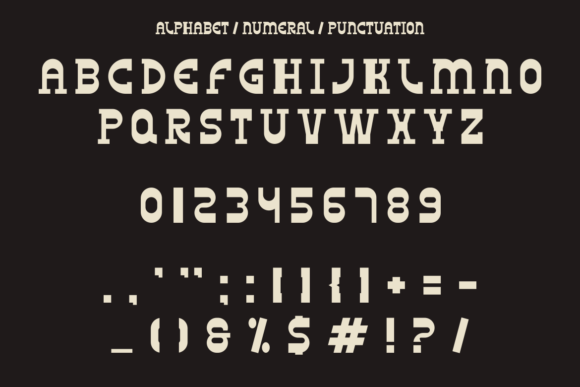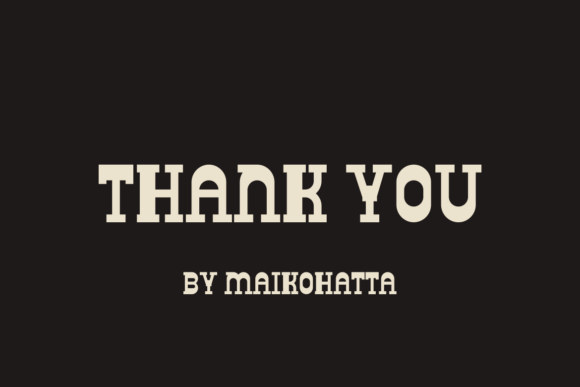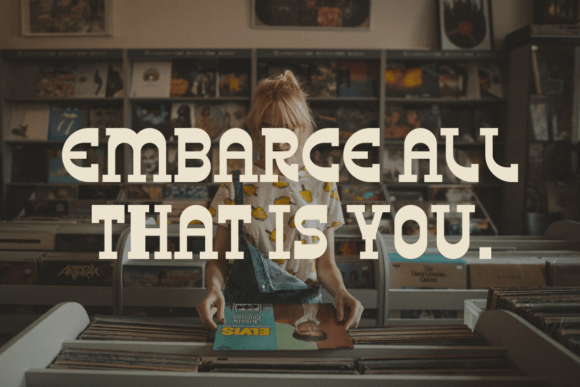
Introduction to Retrobution Font
Do you remember that moment when you were working on a creative project and everything just came together? The perfect blend of colors, the perfect balance of textures, and the perfect font – the icing on the cake? For many designers, that moment is what makes all the hard work worth it. But what if I told you there’s a font that can elevate your designs to the next level, giving you that perfect finishing touch?
Meet the Retrobution Font, a cool, vintage-style display font that’s sure to become your new go-to design resource. With its high quality and versatility, this font is an incredible asset to any designer’s library, offering endless possibilities for creative projects. Whether you’re working on a logo, a poster, or a website, the Retrobution Font is sure to bring a touch of sophistication and elegance to your design.
Key Features of Retrobution Font
- Retrobution Font is a high-quality design resource ideal for creative projects that require a vintage touch.
- Retrobution Font features a unique blend of modern and retro elements, ensuring a consistent aesthetic across various design applications.
- The font comes with a transparent background, allowing for seamless integration with custom graphics and backgrounds.
- The font size is scalable, allowing designers to adjust the font size to suit their creative project’s requirements.
- Retrobution Font is designed with high-resolution graphics in mind, making it perfect for printing and digital applications at 300 DPI or higher.
Honest Review: Retrobution Font
I recently had the chance to try out the Retrobution Font, and I’m excited to share my thoughts with you. This font has some great qualities that make it a solid addition to any design project.
What works well: ✨ The Retrobution Font is a high-quality font that’s perfect for creative projects. It’s clean, modern, and has a great retro vibe that’s perfect for adding some personality to your designs. The font is also available for free download, which is a huge bonus. Plus, it’s got a transparent background, which makes it super versatile.
What doesn’t work so well: ⚠️ While the Retrobution Font is a great addition to many projects, it might not be the best choice for more formal or professional designs. The retro vibe can feel a bit kitschy, and it might not be the right fit for projects that require a more serious tone.
Overall, I’m really impressed with the Retrobution Font. It’s a great design resource that’s perfect for creative projects. With its high-quality design, transparent background, and free download, it’s definitely worth checking out.
To get the most out of Retrobution Font, experiment with different font sizes, colors, and combinations to create unique designs. You can also pair the font with other design elements, such as graphics and images, to create visually appealing designs.
Retrobution Font is commonly used in creative projects, such as posters, flyers, and social media graphics. It’s also used in branding and marketing materials, such as business cards and logos. With its high-quality design and transparent background, Retrobution Font is a versatile design resource for any creative project.